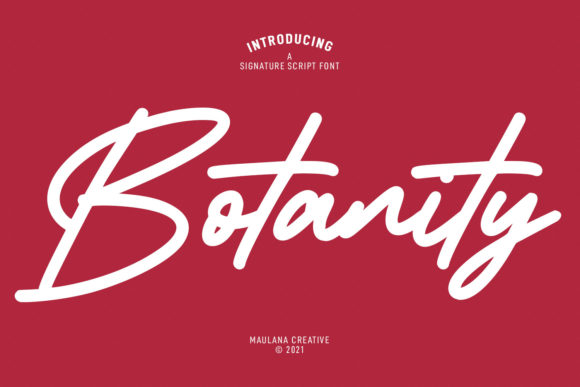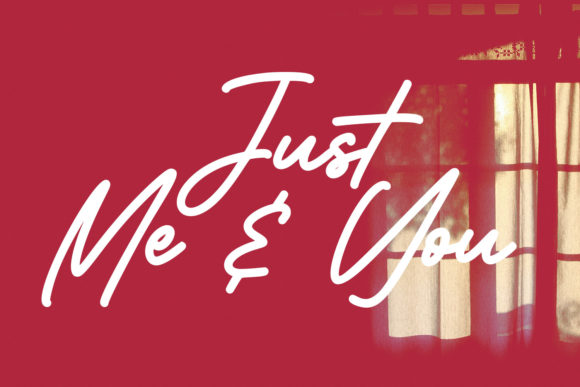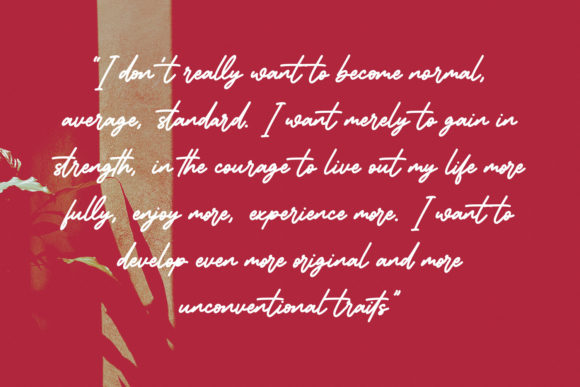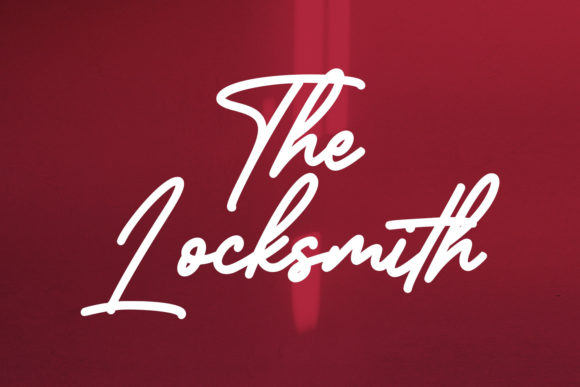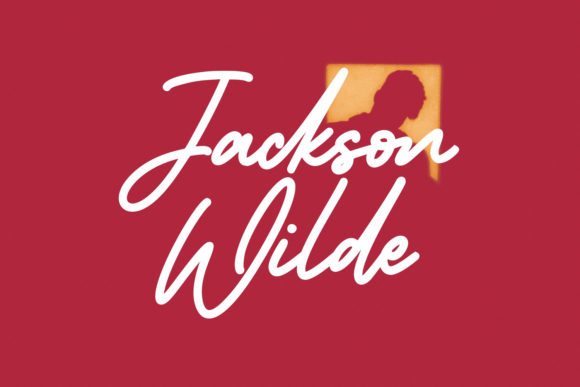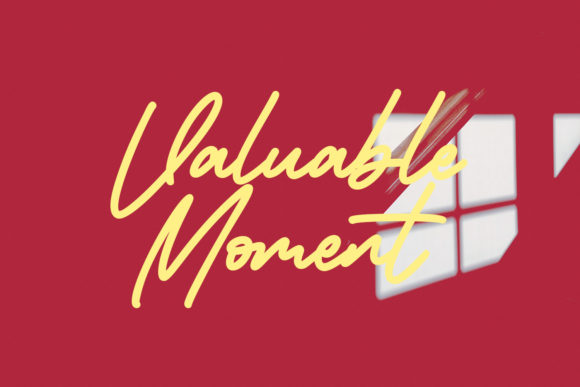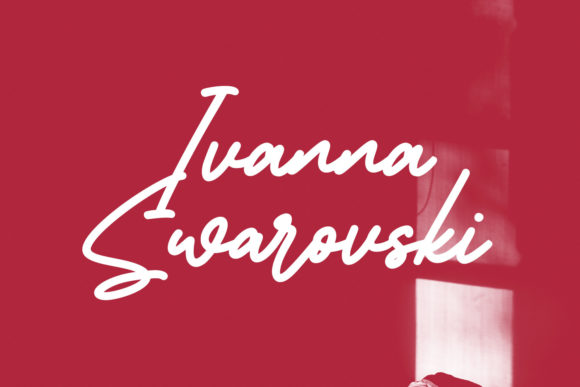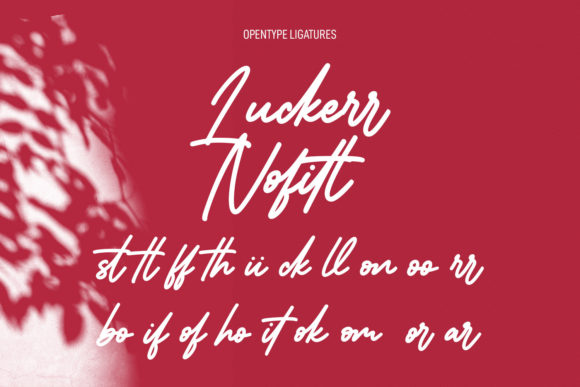
Botanity Signature Font
About Botanity Signature Font
Botanity Signature is a lovely and delicate script font that exudes elegance and class. This font was particularly crafted for those who need a beautiful and refreshing look to their designs.